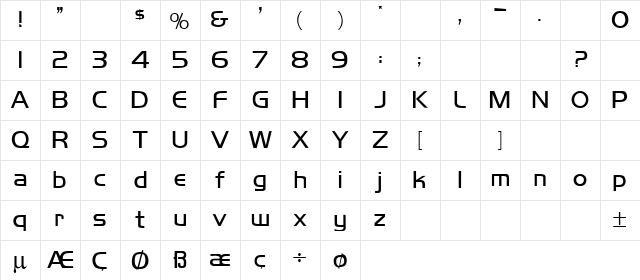
Complete Koshgarian Regular glyph index. Displaying only characters natively supported by Koshgarian Regular font.
Koshgarian is a composed and adaptable typeface that performs quietly and consistently across a wide range of design contexts.